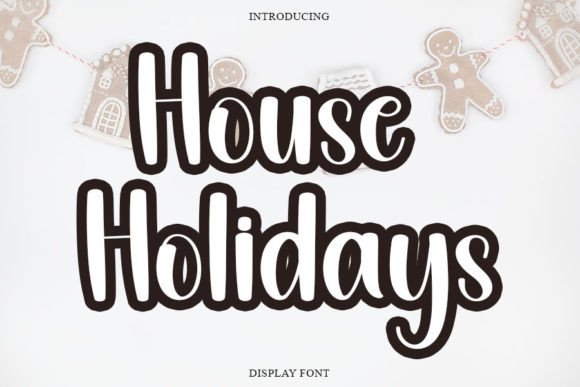
If you long for a virtual companion with a flair for warmth and intimacy, look no further than House Holidays. Meet the handwritten font that exudes friendliness, turning mundane words into soulful expressions.
House Holidays is more than just a font; it's an experience. It's an invitation to embark on a journey of creativity, where each letter dances with joy and playful elegance. It's the perfect choice for your joyous projects, crafting heartfelt messages and visually stunning designs that embrace the essence of human connection.
Picture this: a heartfelt greeting card, adorned with words penned in House Holidays, carrying a warmth that radiates through the screen. Your social media posts, infused with the charm of House Holidays, captivate your audience, drawing them into a world of whimsical delight. Your digital creations, polished with the House Holidays touch, leave an imprint of your unique personality, making them truly remarkable.
House Holidays is not merely a font; it's a paintbrush that adds hues of happiness to your creative endeavors. It's an open invitation to let your imagination soar, to embrace the beauty of heartfelt expression. With House Holidays by your side, your artistic visions will blossom into captivating masterpieces.
And as you dive into the world of House Holidays, you'll discover a versatile companion that adapts seamlessly to your creative needs. Whether you're crafting a charming logo, designing an inviting website layout, or creating heartwarming invitations, House Holidays rises to the occasion, adding a dash of amicable charm to each project.
So, seize the opportunity to infuse your creations with a touch of joy and warmth. Let House Holidays be your creative partner, guiding you on a journey of artistic exploration. Embrace the beauty of heartfelt expression, and let your designs radiate with the genuine warmth of House Holidays.